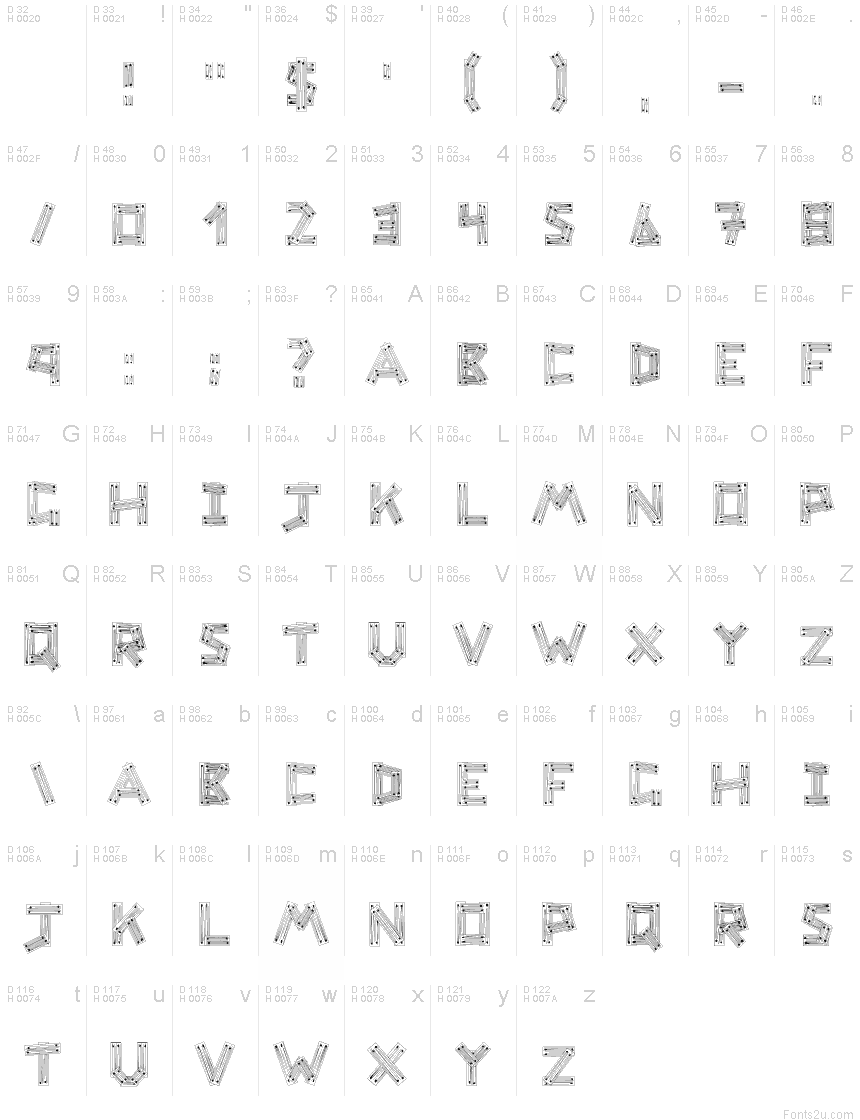
Boards font is a free decorative display typeface that looks as if it’s been hammered together from real planks and nails. Each letter feels hand-built, with layered boards, tiny screw heads, and a slightly chaotic rhythm that gives headlines a raw, workshop energy. The thin linework and overlapping slats create a sketchy, tactile feel, like a construction sketch come to life.
Using Boards, this free font shines on DIY event posters, maker fair banners, hardware or carpentry branding, skate and surf graphics, construction-themed book covers, and crafty social media titles. Keep it big so the board details stay crisp, and pair it with a simple, neutral sans serif for body text to let the letterforms do the heavy lifting.